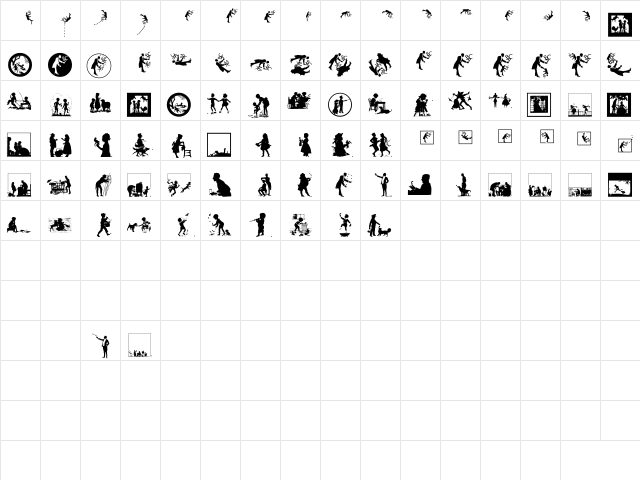
SilhousTwo Regular
Design Context for SilhousTwo Typeface
SilhousTwo is a composed and adaptable typeface that performs quietly and consistently across a wide range of design contexts.